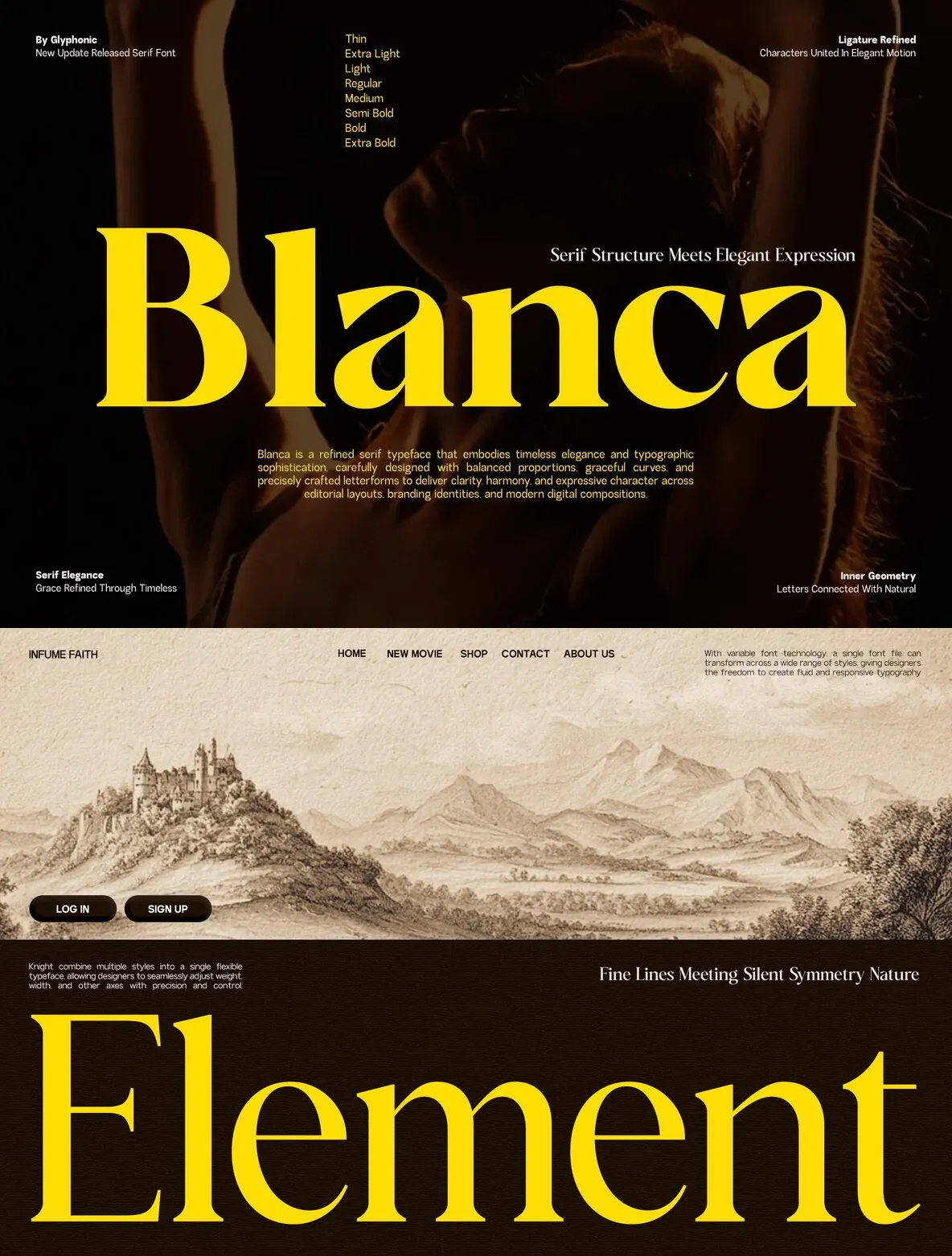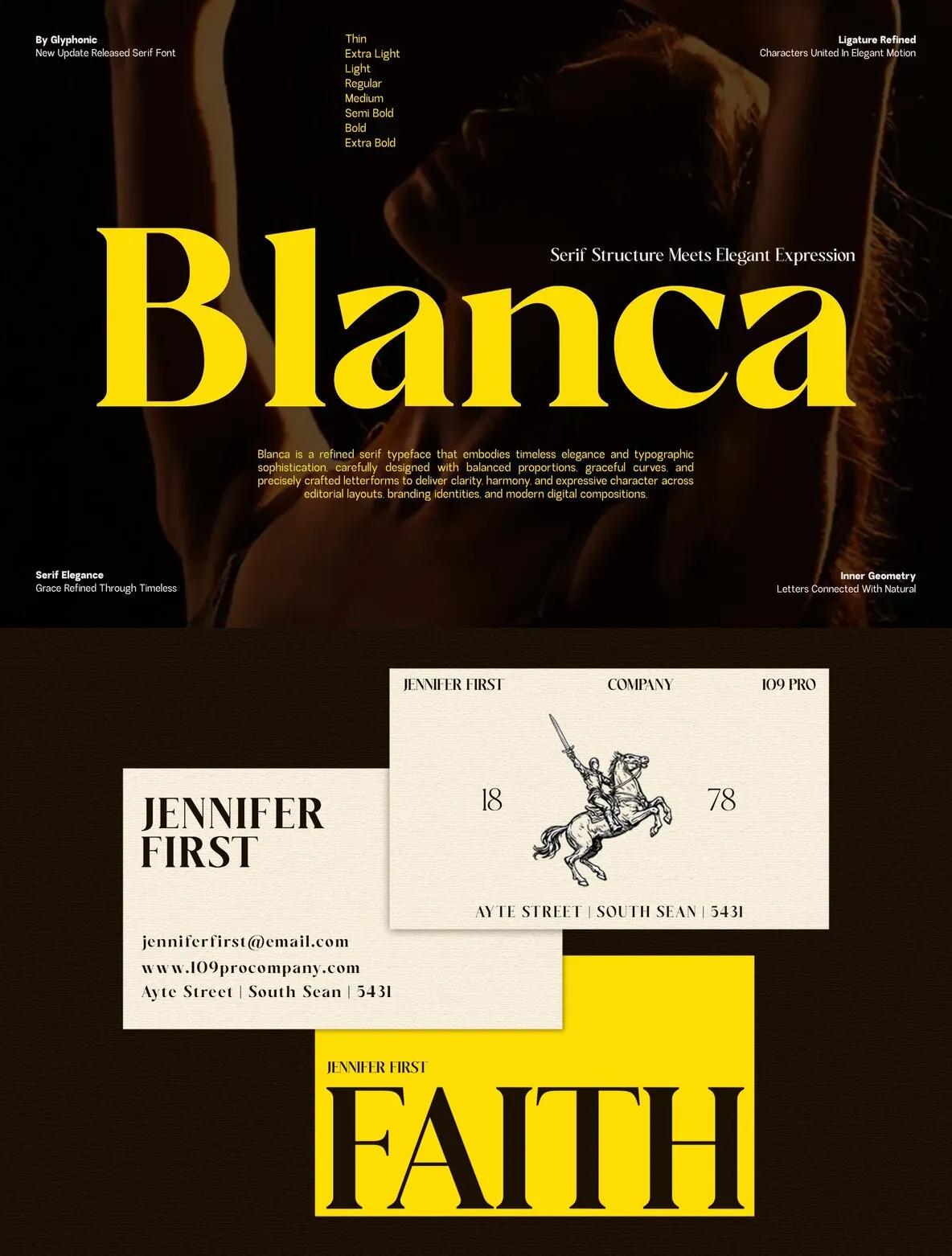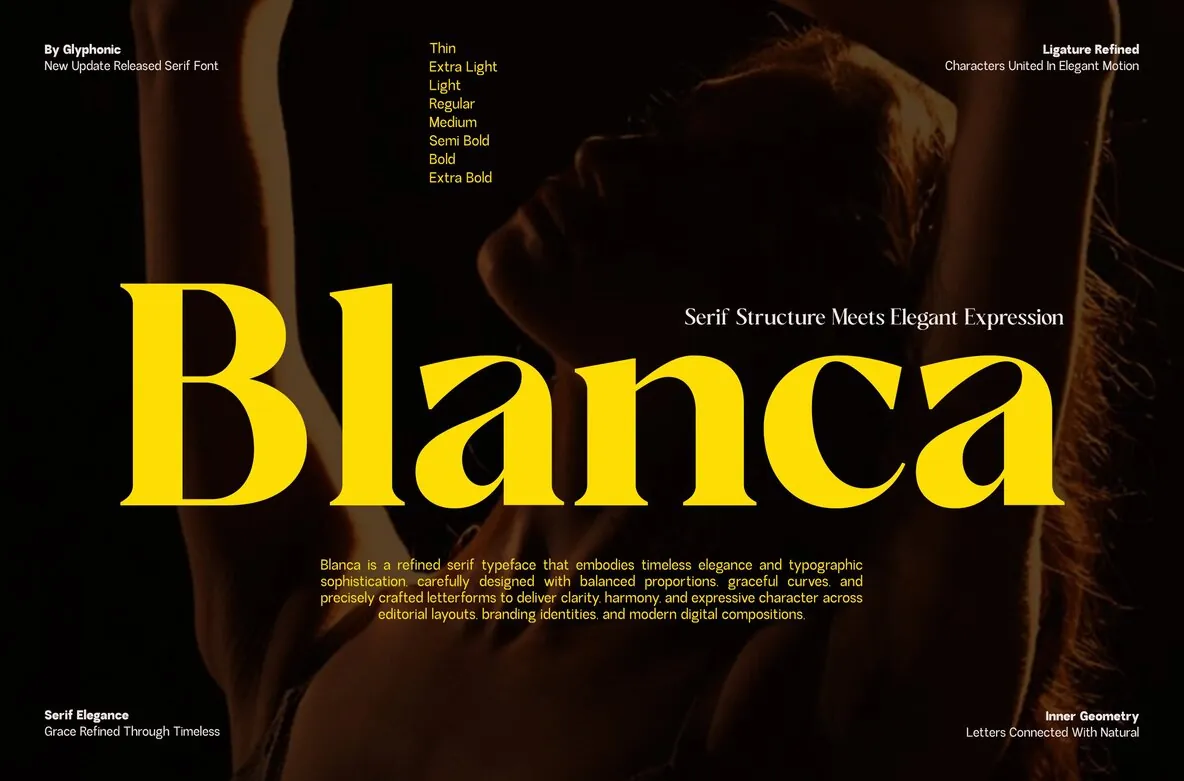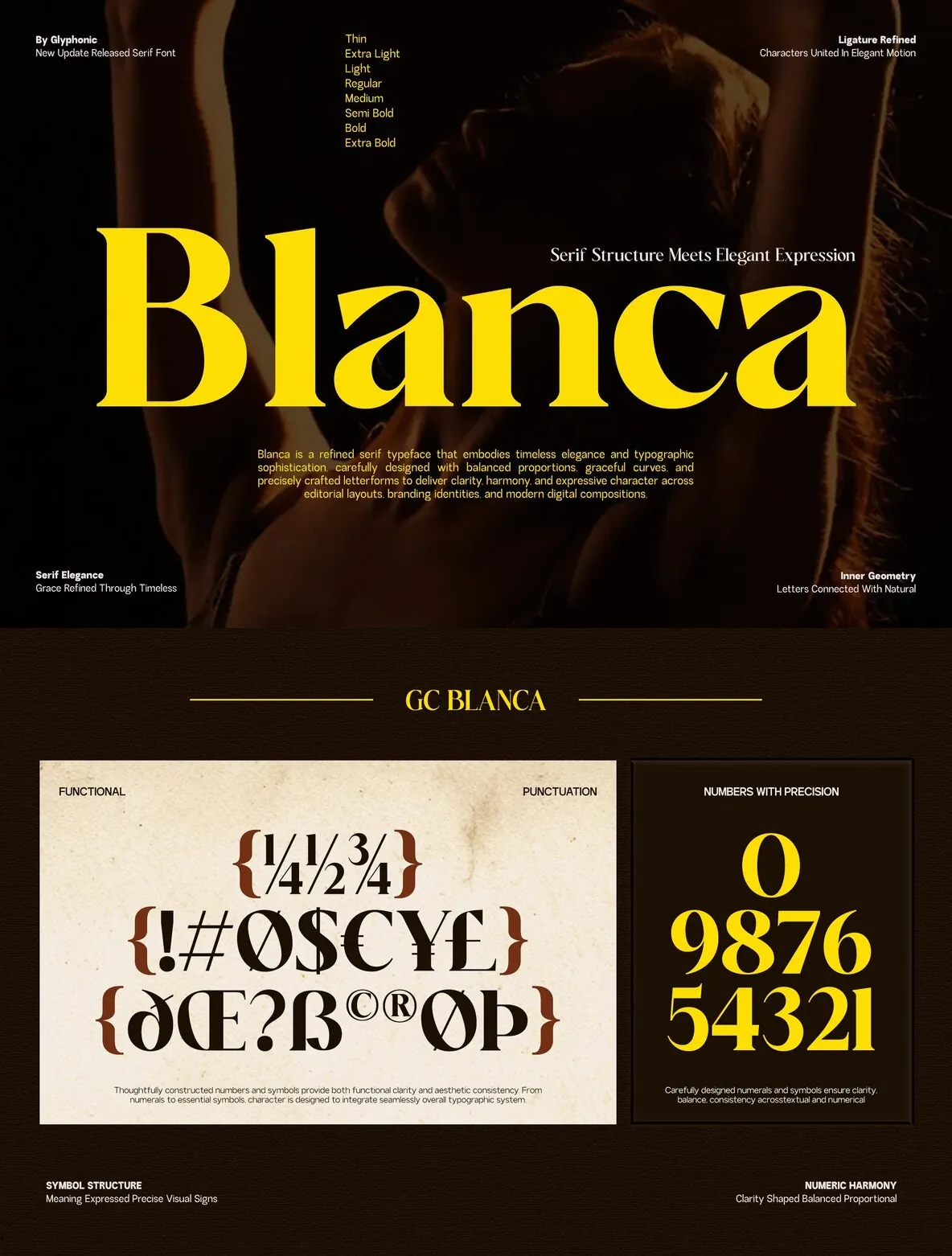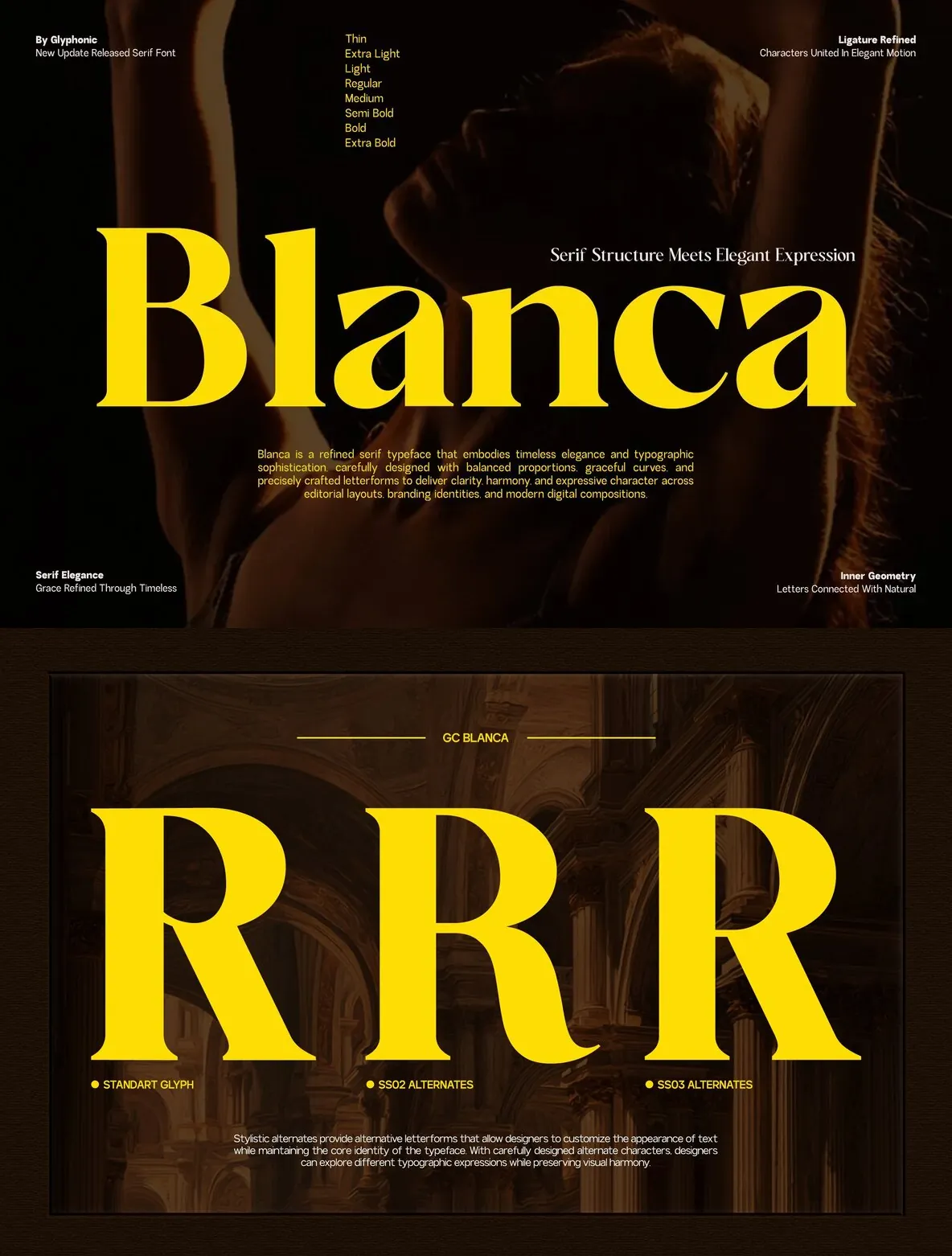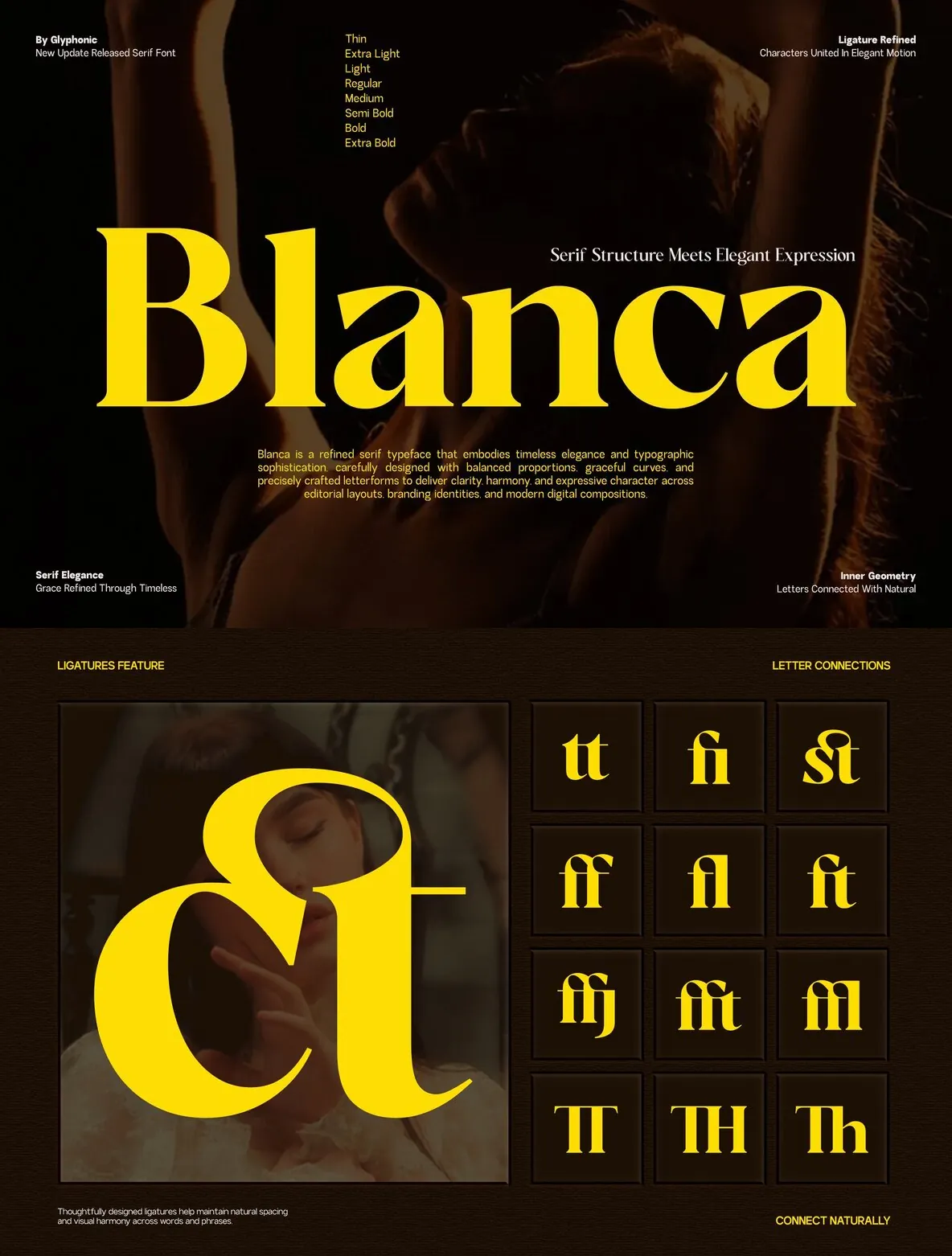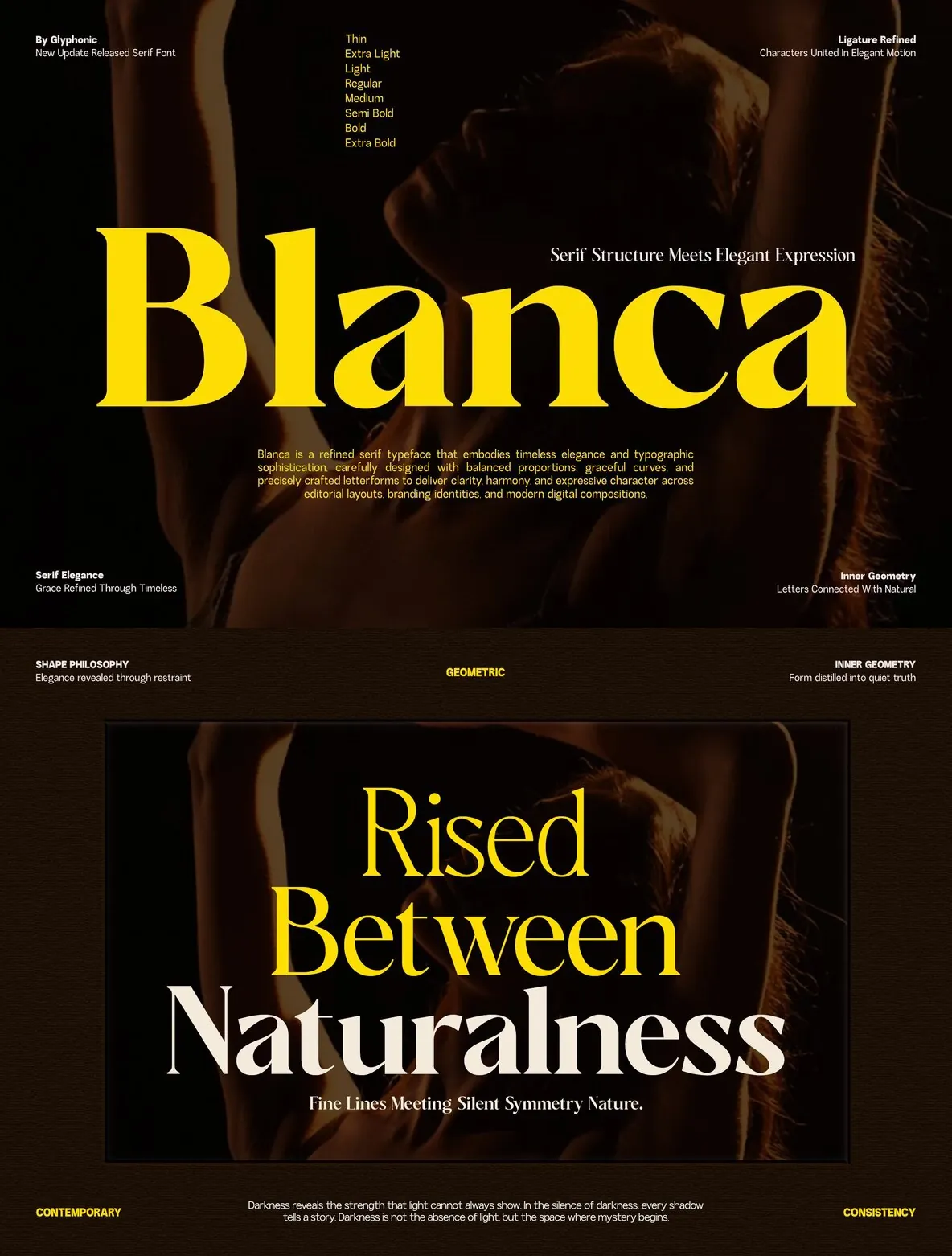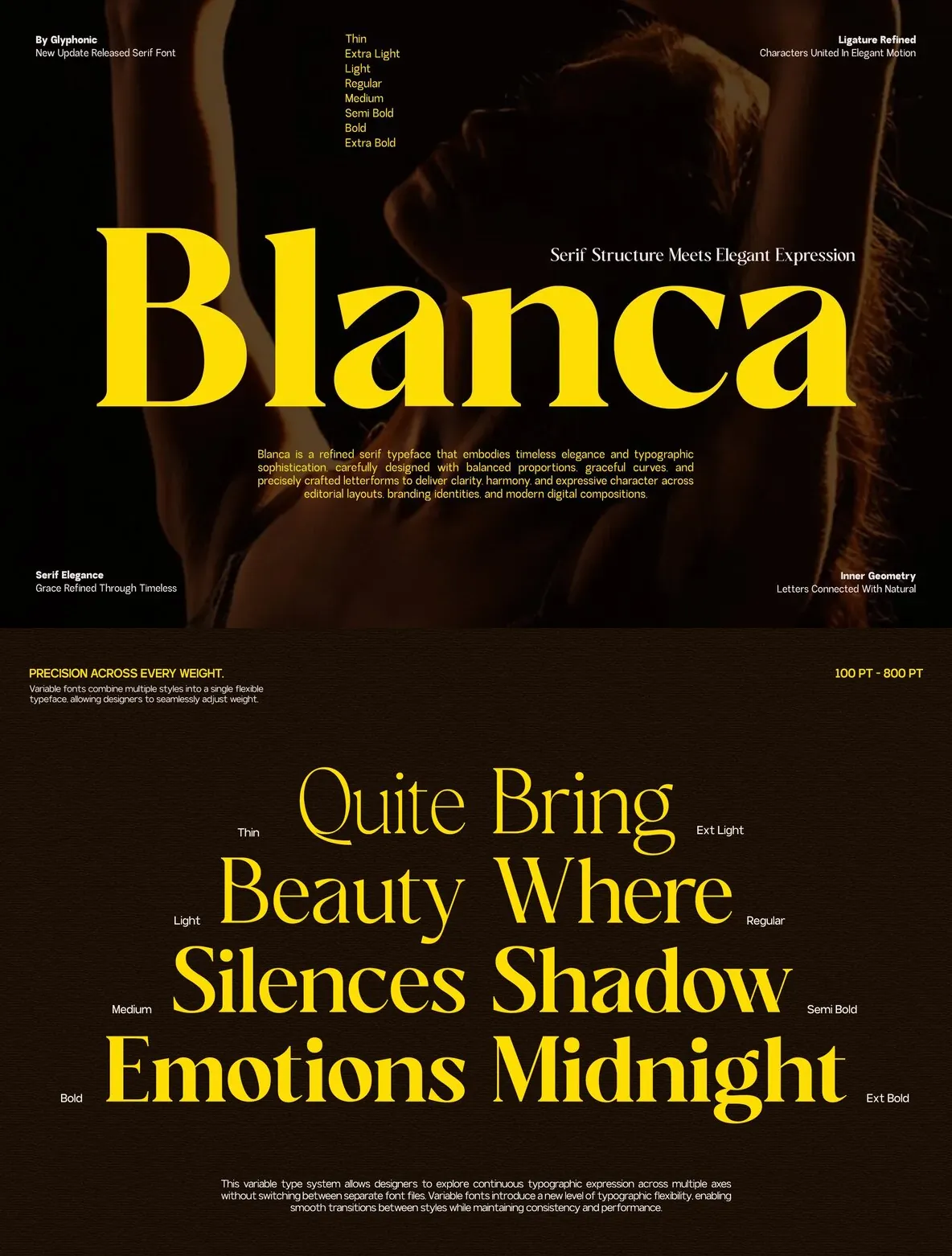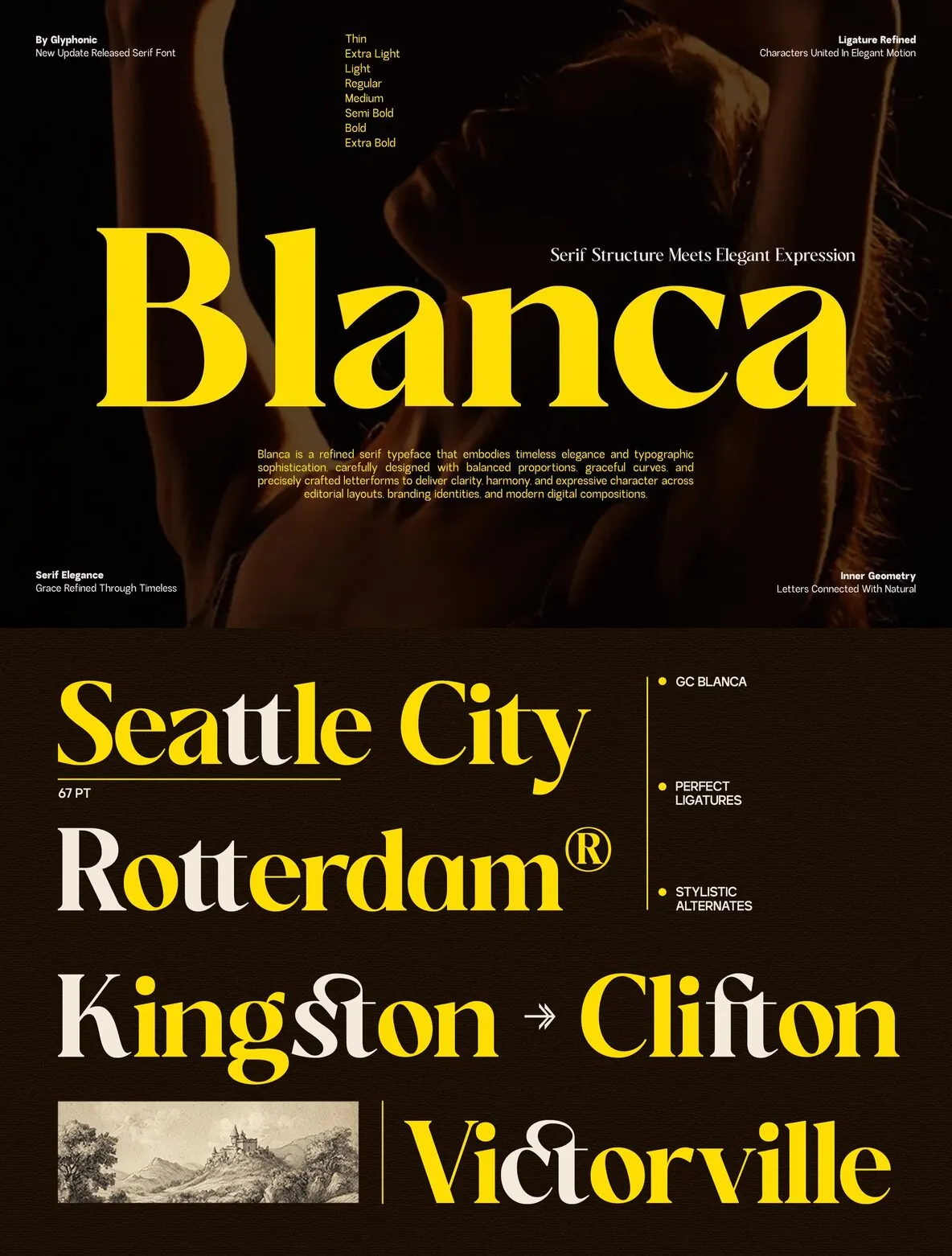
GC Blanca — Poise in High Contrast
GC Blanca – Serif Elegant Character
is a refined serif typeface with timeless elegance and expressive sophistication. Balanced proportions, graceful curves, and high-contrast strokes give Blanca a luxurious typographic voice that reads as both classic and contemporary. The result feels composed and confident, with clear rhythm across lines and strong presence at display sizes.
Its elegant structure and smooth transitions show in flowing letterforms and carefully refined details. Delicate ligatures and thoughtfully shaped characters add expressive depth, making it well suited to work that needs emotional nuance without losing clarity. Use it in editorial layouts, fashion branding, luxury packaging, and modern visual compositions across digital and print media.
A versatile weight range supports hierarchy, from light, airy text to bold, impactful headlines, while keeping consistency and readability. Whether you set sophisticated headlines, refined branding, or artistic layouts, GC Blanca brings elegance, clarity, and an expressive serif character to your typography.
Variable Font (Thin – Extra Bold)
Elegant Serif Construction
Uppercase & Lowercase
Numbers & Punctuation
Refined Ligatures
Multilingual Support (170+ Languages)